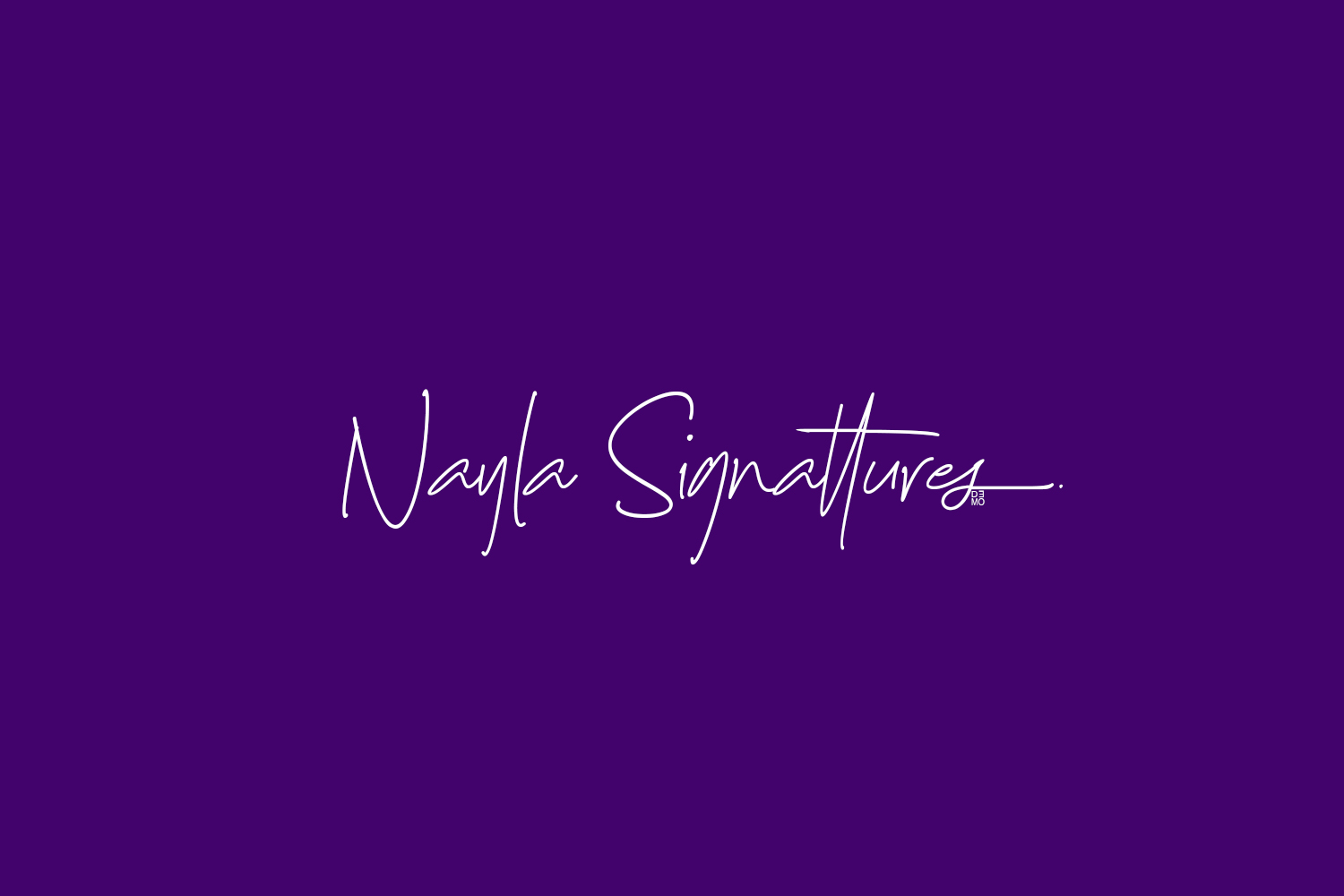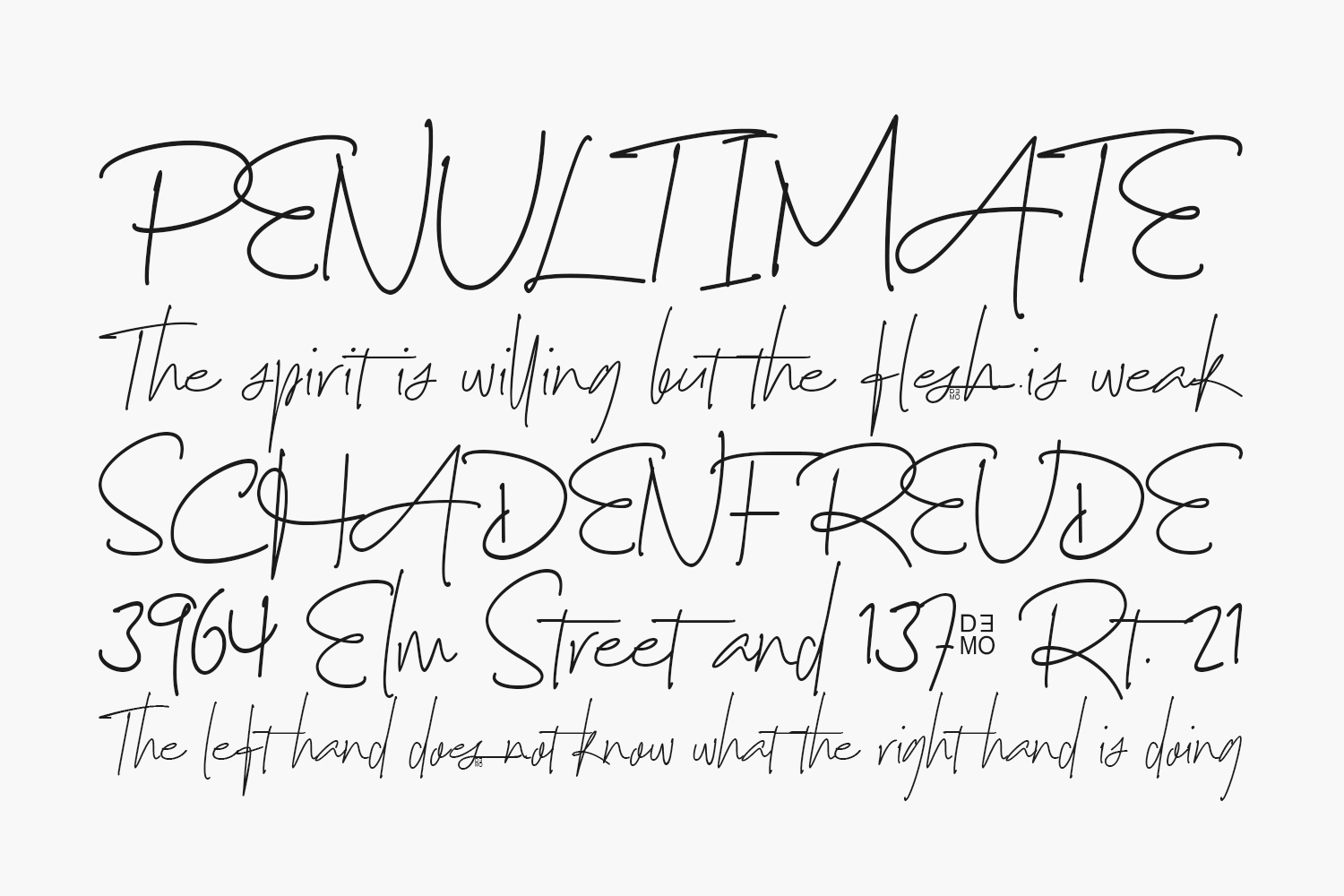
Nayla Signattures Free Font is a simple monoline script handwritten font that feels equally charming and elegant. Great for creating slick & stylish lettering natural feel handwriting taste. Fall in love with its authentic feel and use it to create gorgeous wedding invitations, beautiful stationary art, eye-catching social media posts, and cute greeting cards. Includes in uppercase, lowercase, standard numbers & punctuation, multilingual support.